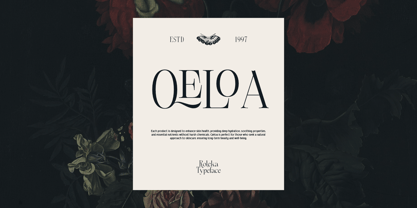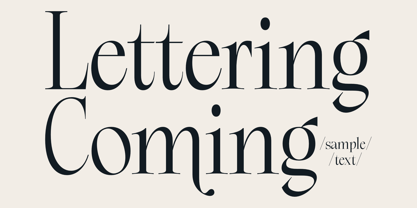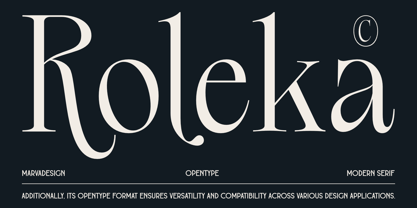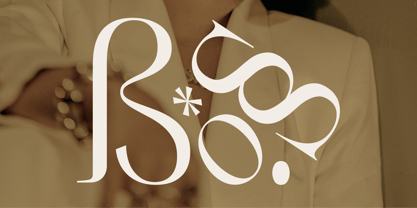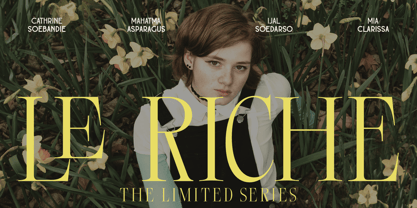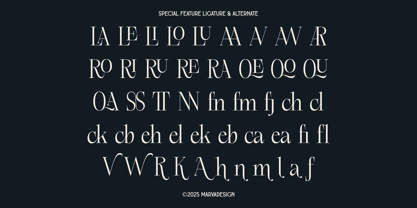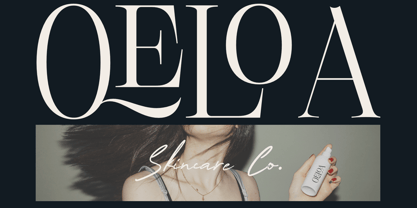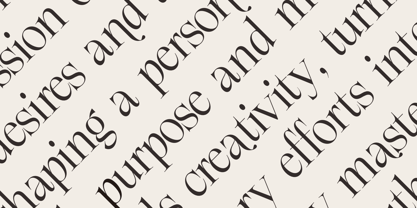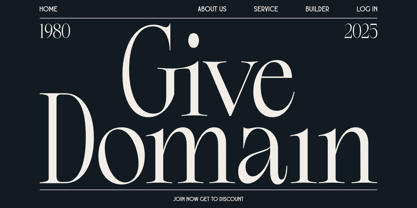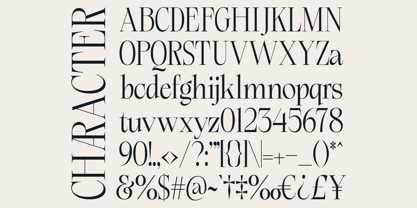
Roleka
The Roleka Font Family was designed by Febrie Setiawan and published by Marvadesign. Roleka contains 1 styles. More about this family
Introducing New Serif Typeface Roleka is a modern serif typeface with an elegant and sophisticated aesthetic. Its design features high contrast between thick and thin strokes, creating a refined and luxurious appearance. The elongated serifs and smooth curves add a sense of fluidity, while the sharp angles provide a contemporary edge. The font maintains a balance between classic and modern typography, making it suitable for branding, editorial design, and high-end packaging.